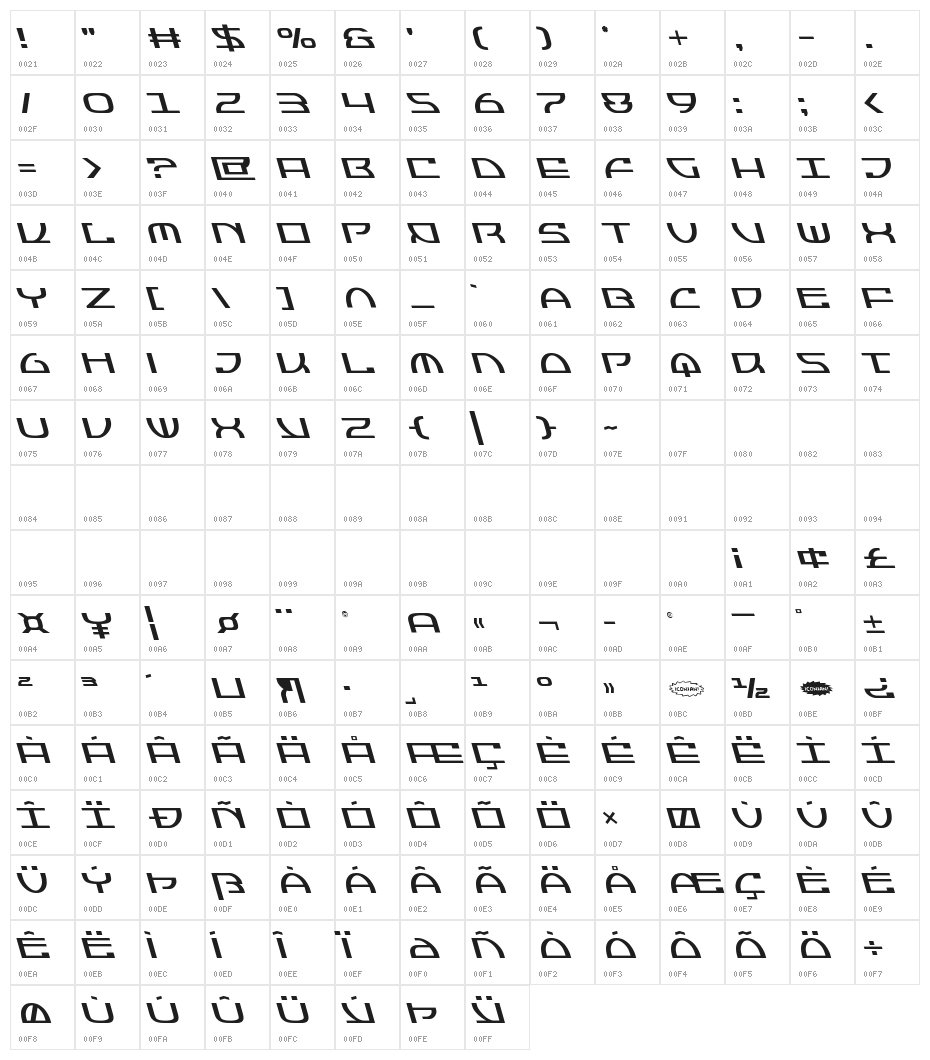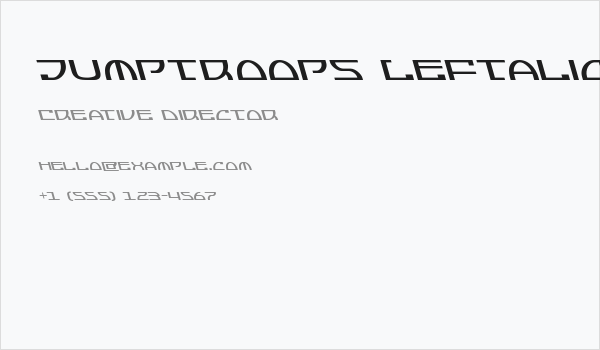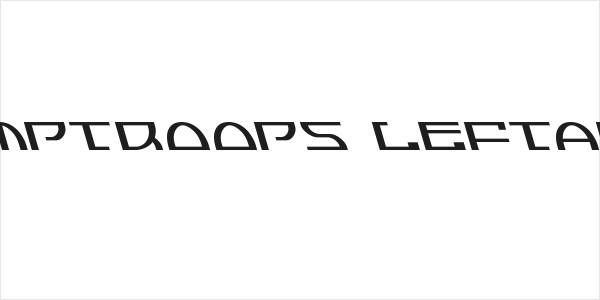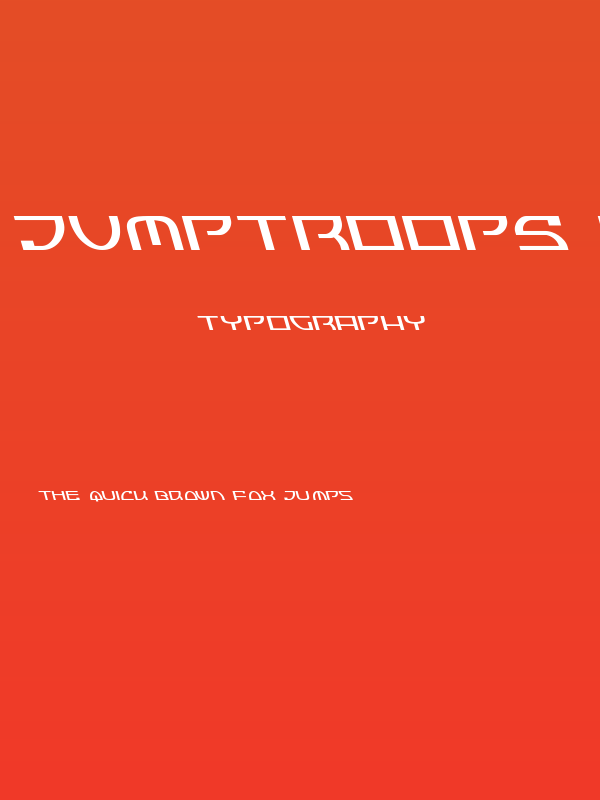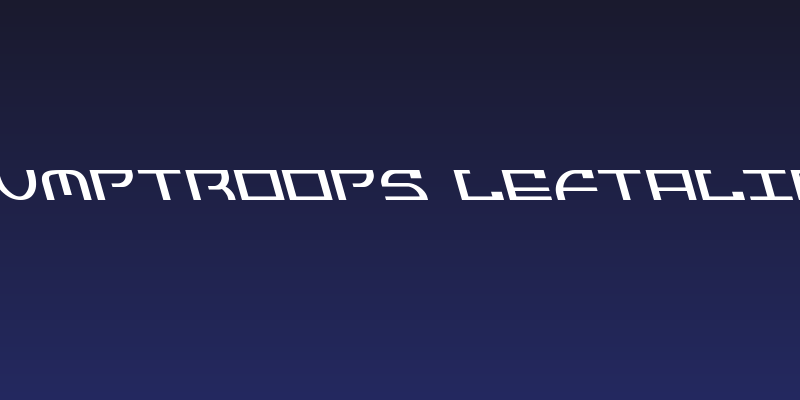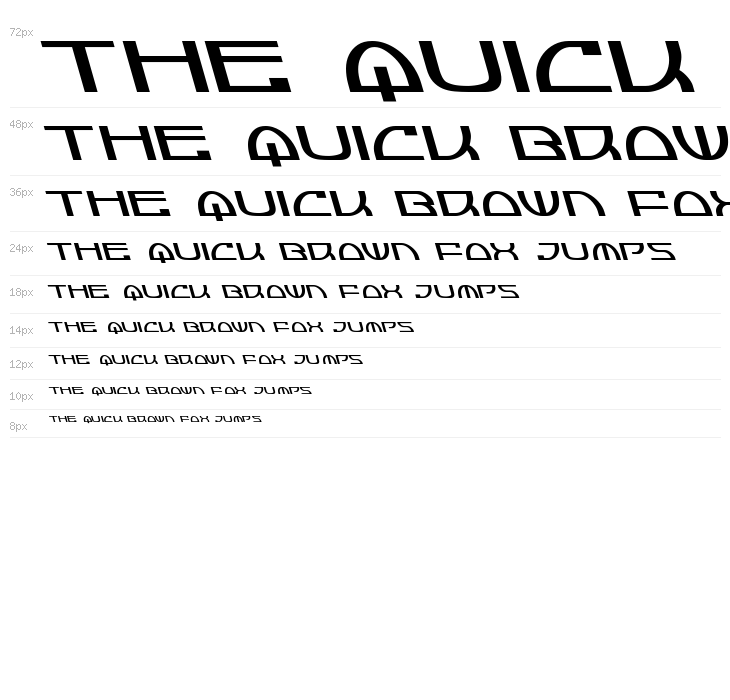
Jumptroops Leftalic Font
Jumptroops Leftalic Description
This font features a futuristic and angular design, characterized by its sharp edges and geometric shapes. The letters are slightly slanted, giving a dynamic and forward-moving appearance. The uppercase and lowercase letters maintain a consistent style, with unique cutouts and angles that create a sense of motion and modernity. The numerals and special characters follow the same design principles, ensuring a cohesive look across all glyphs. This font is ideal for projects that require a bold and contemporary aesthetic.
| Proposed Projects | Ideal for sci-fi themed designs, tech branding, video game titles, and modern posters. |